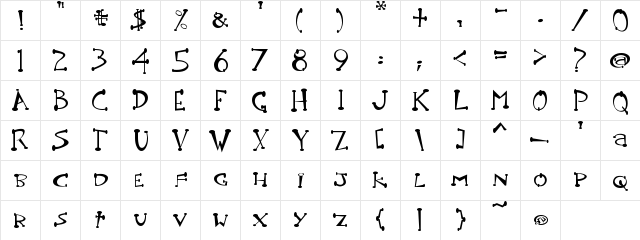
Pot roaster Regular
| Foundry | Chris Brown (visual design) |
| Designer | Chris Brown |
Design Context for Pot roaster Typeface
Pot roaster is a composed and adaptable typeface that performs quietly and consistently across a wide range of design contexts.